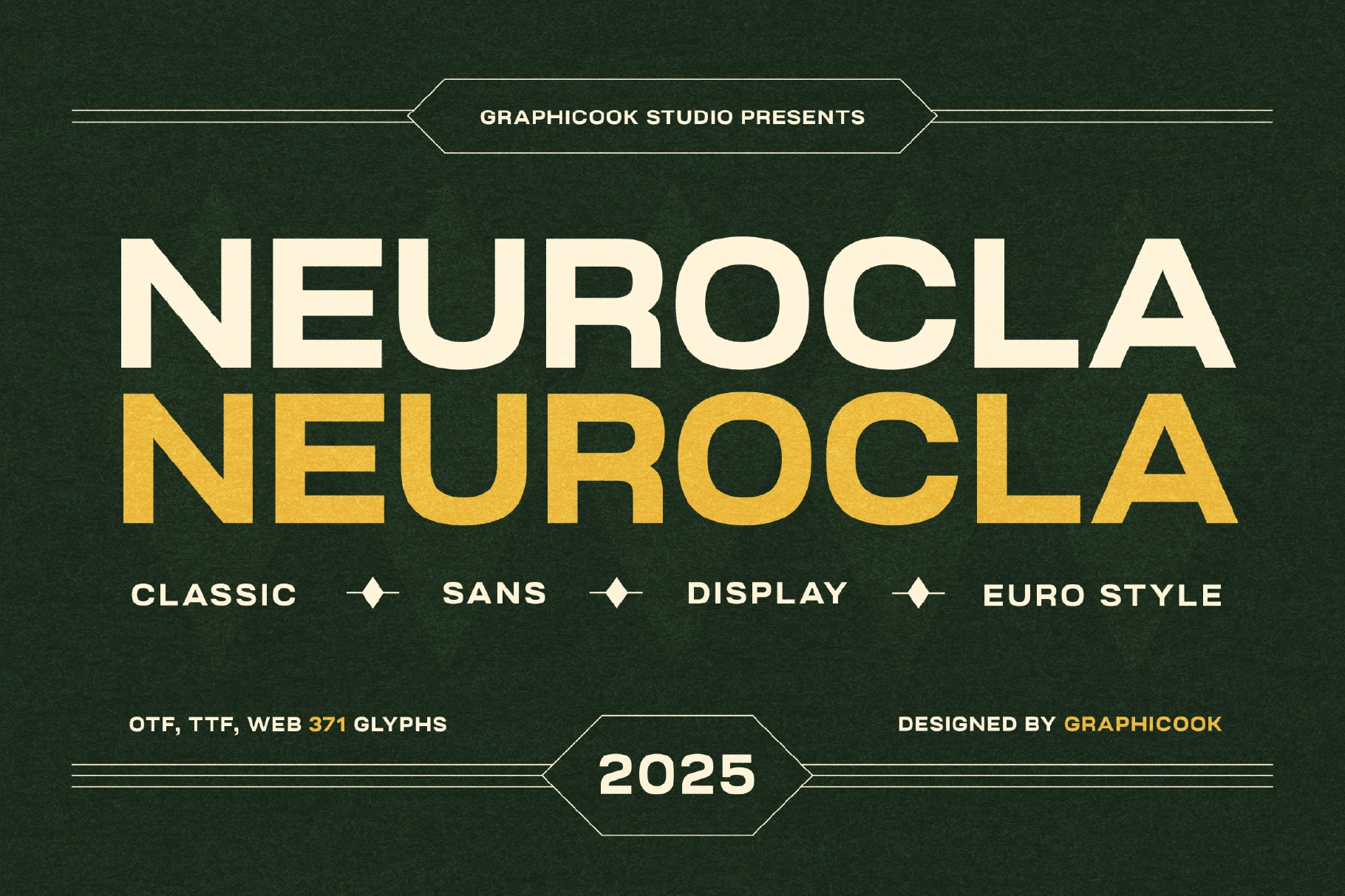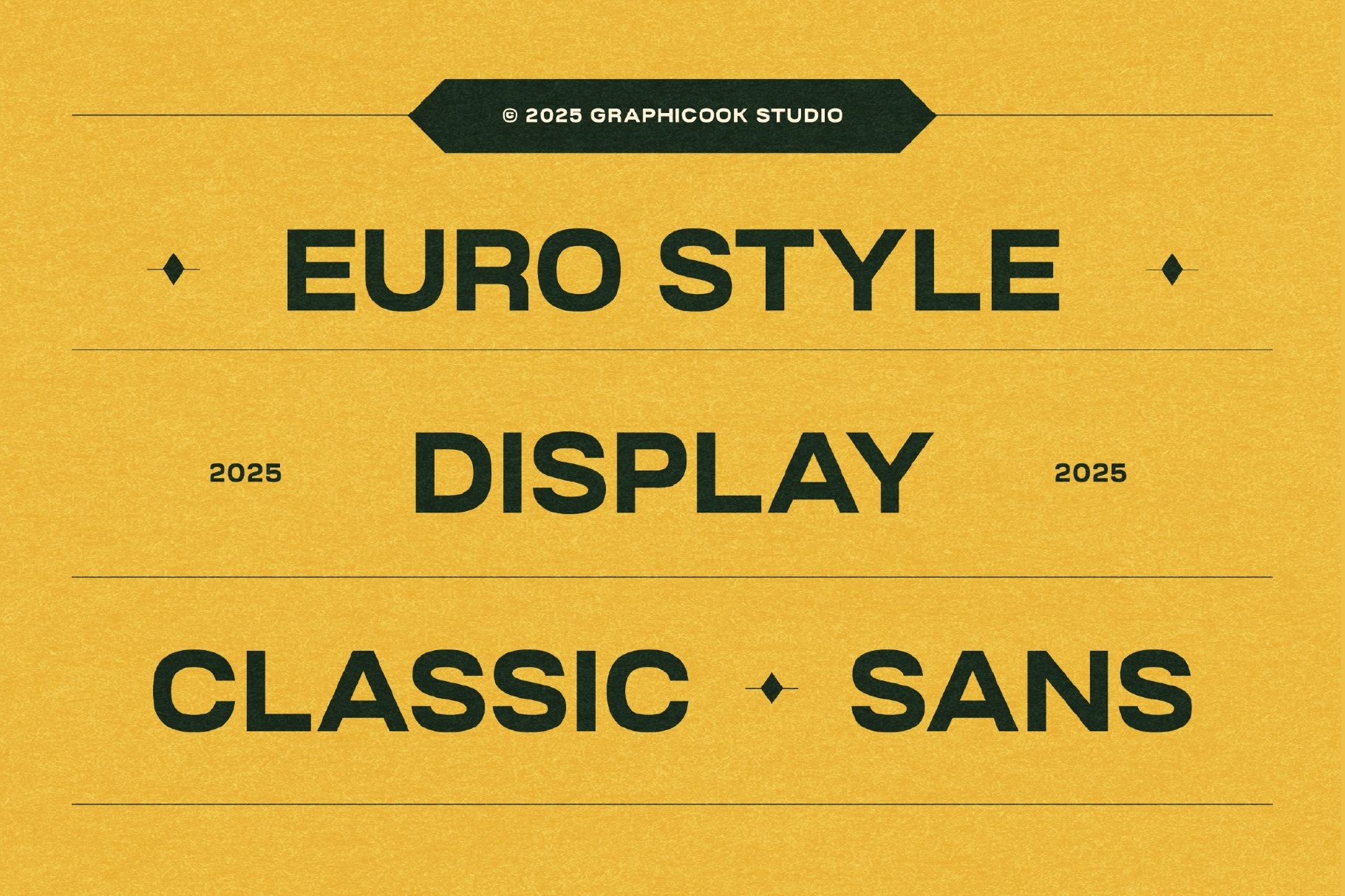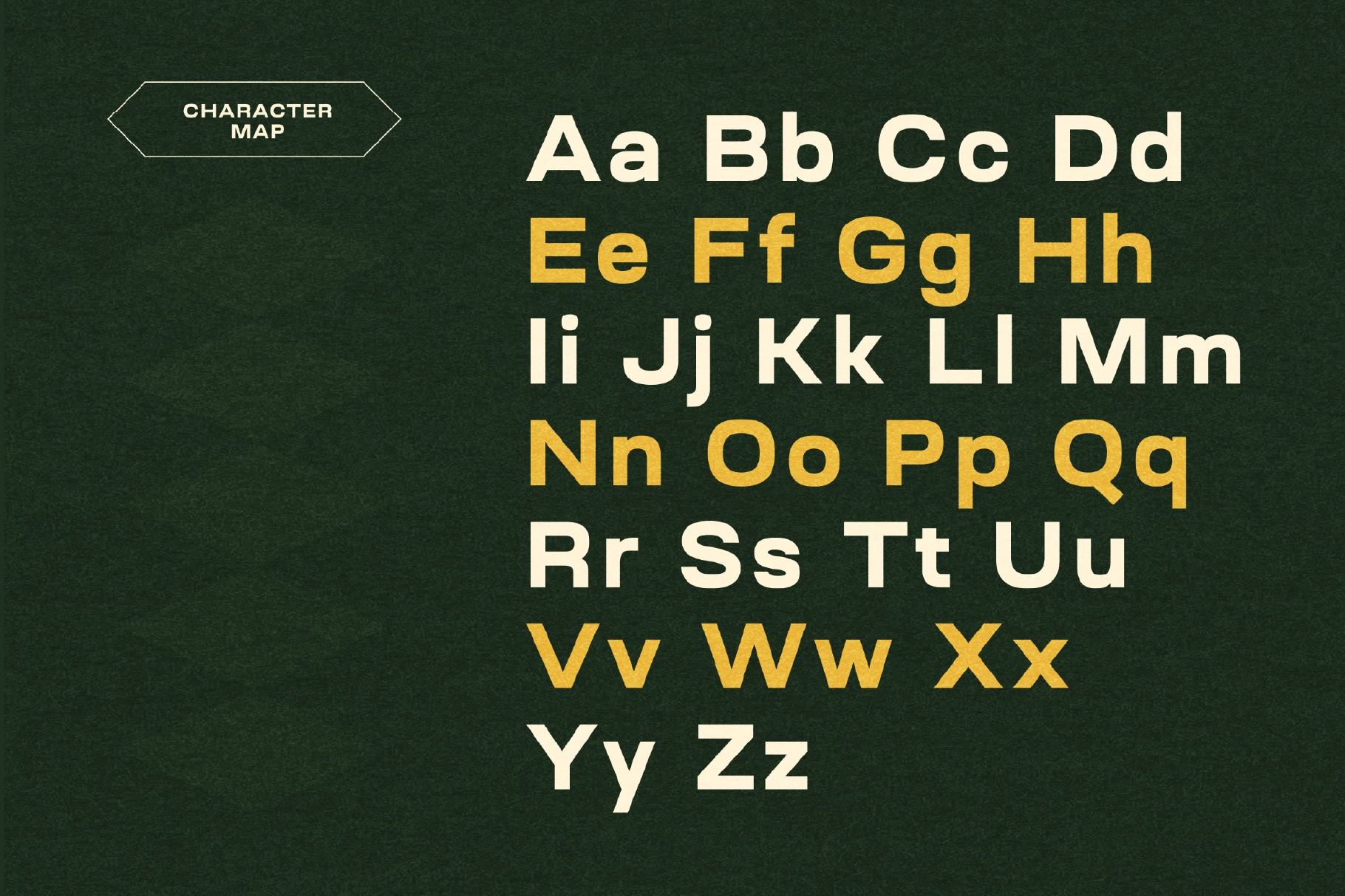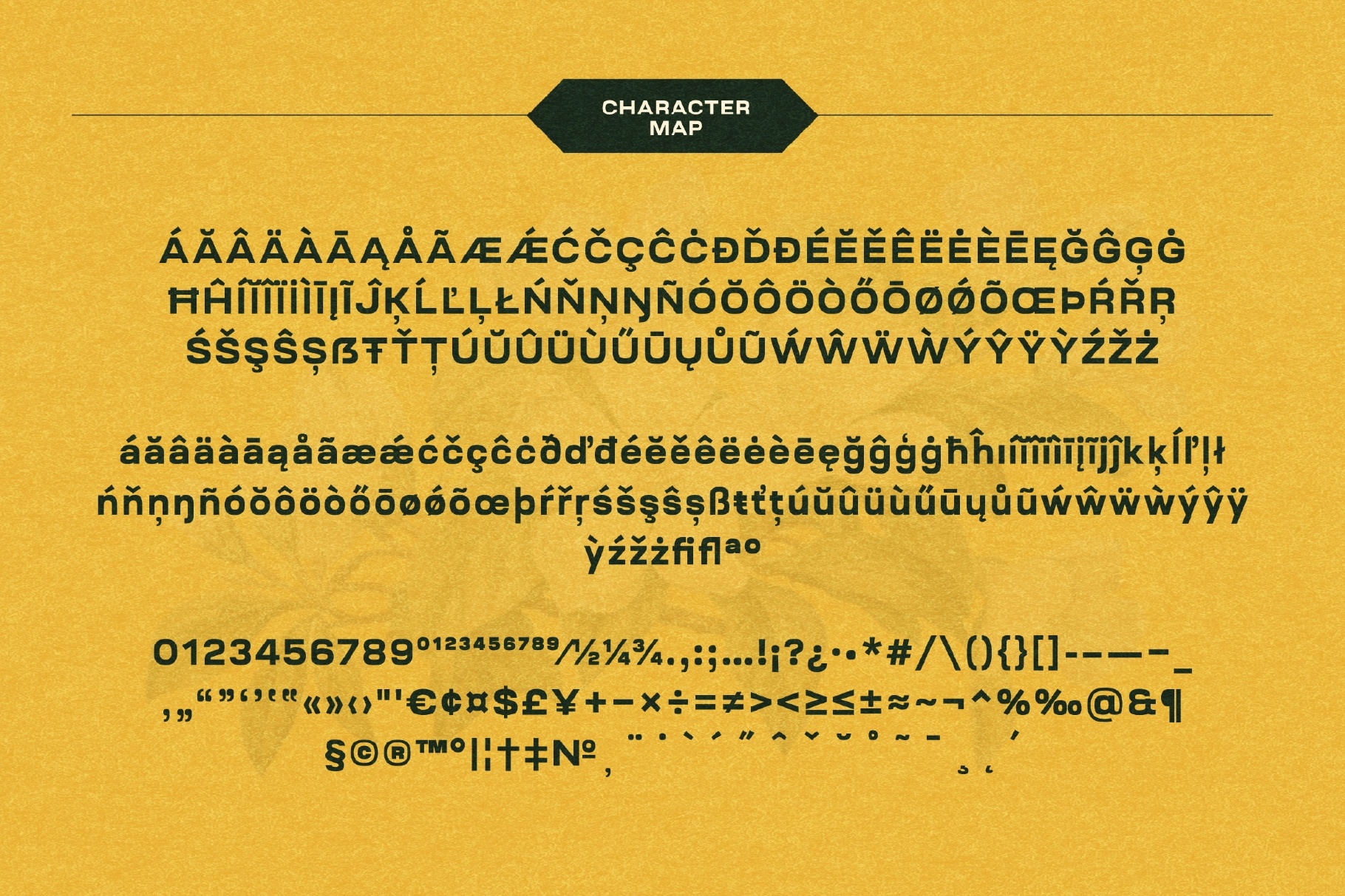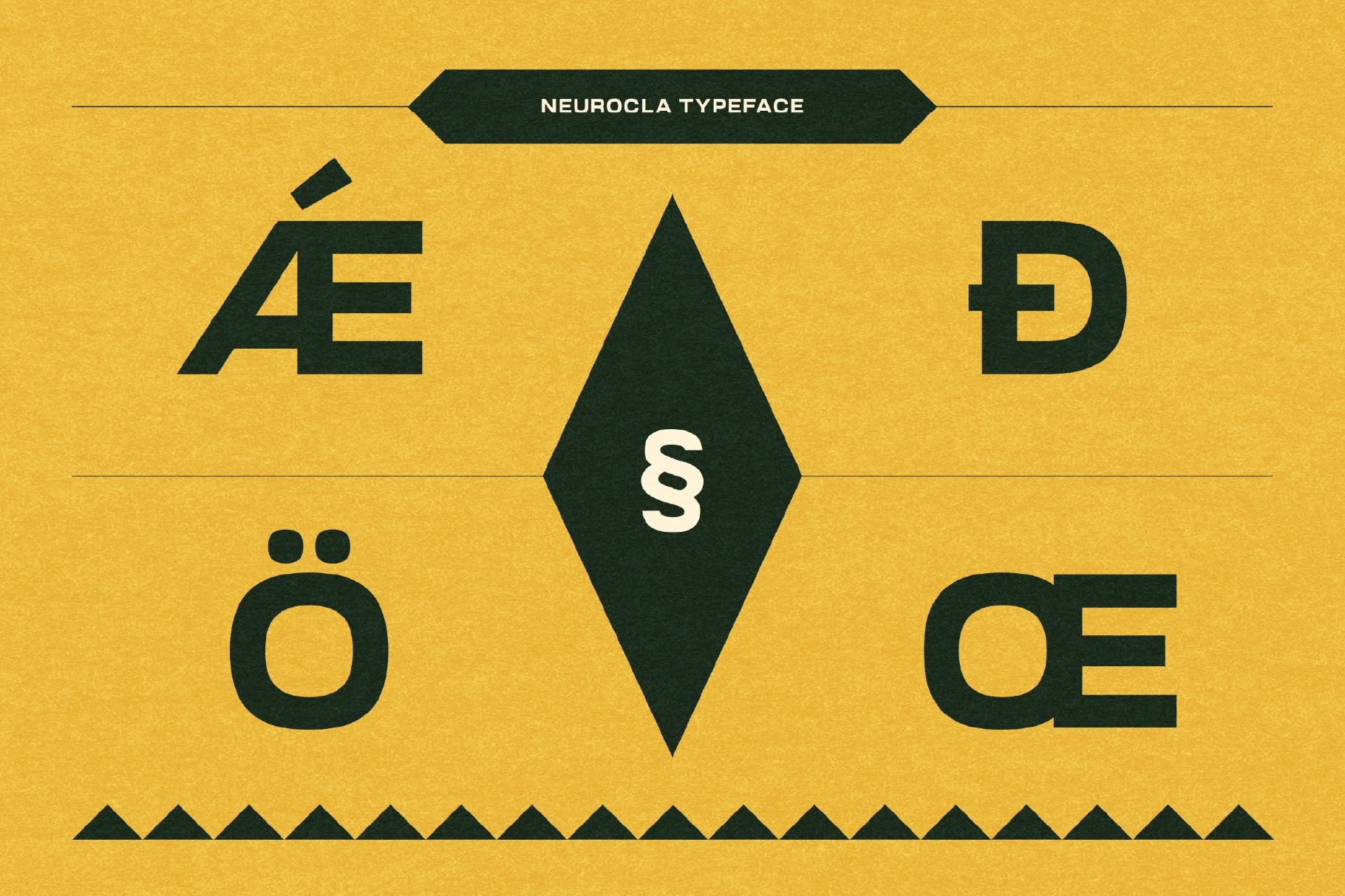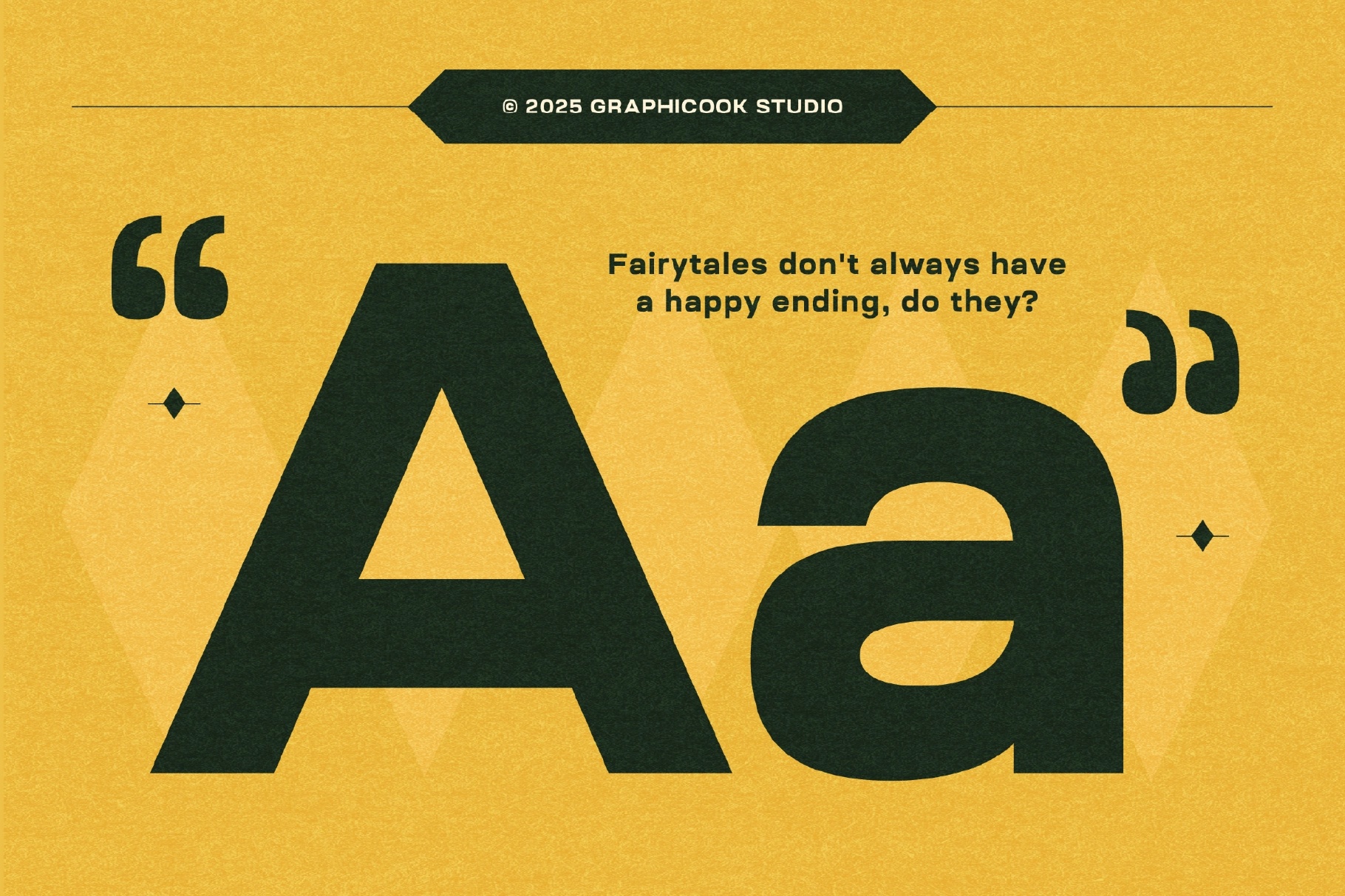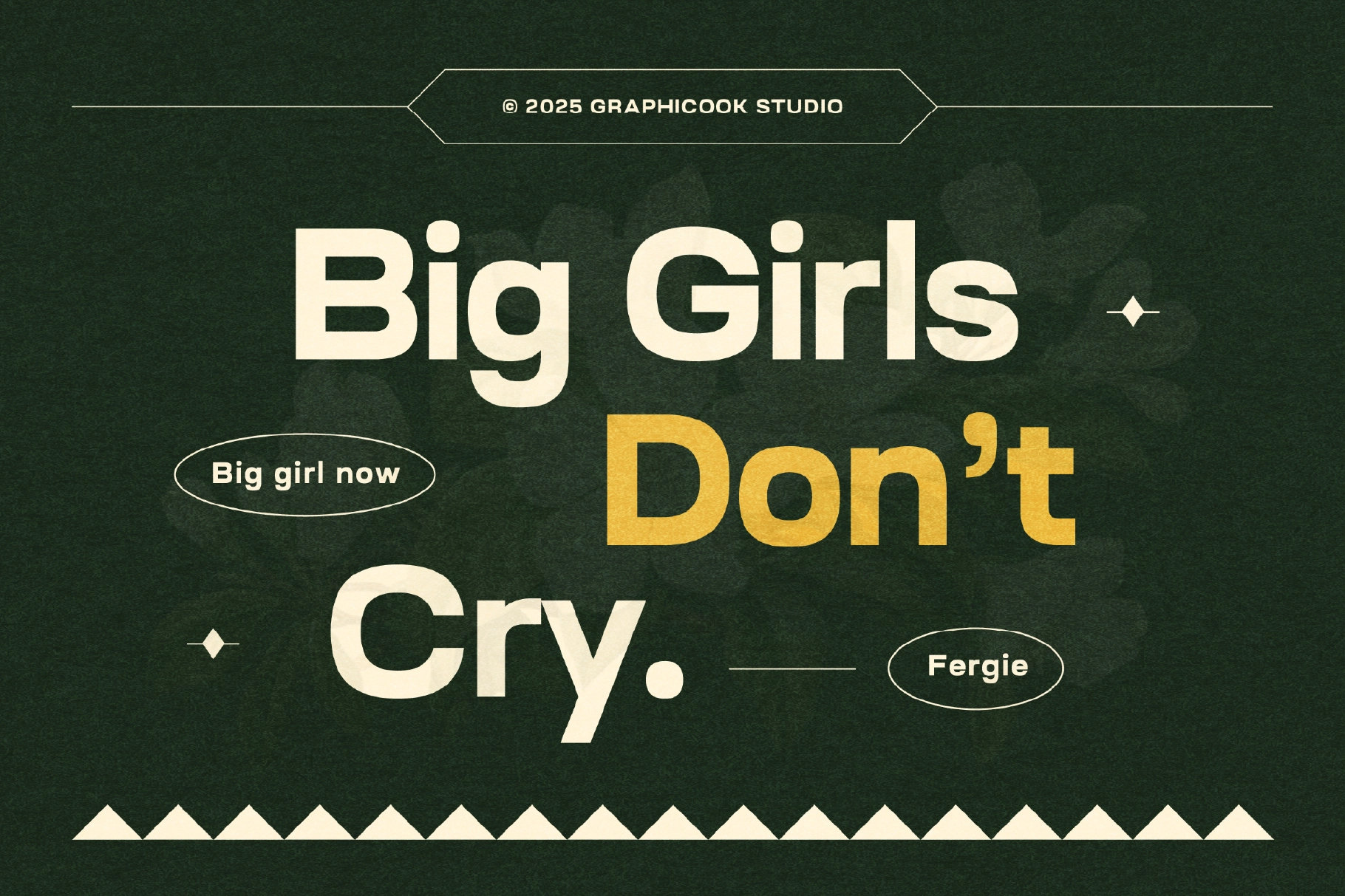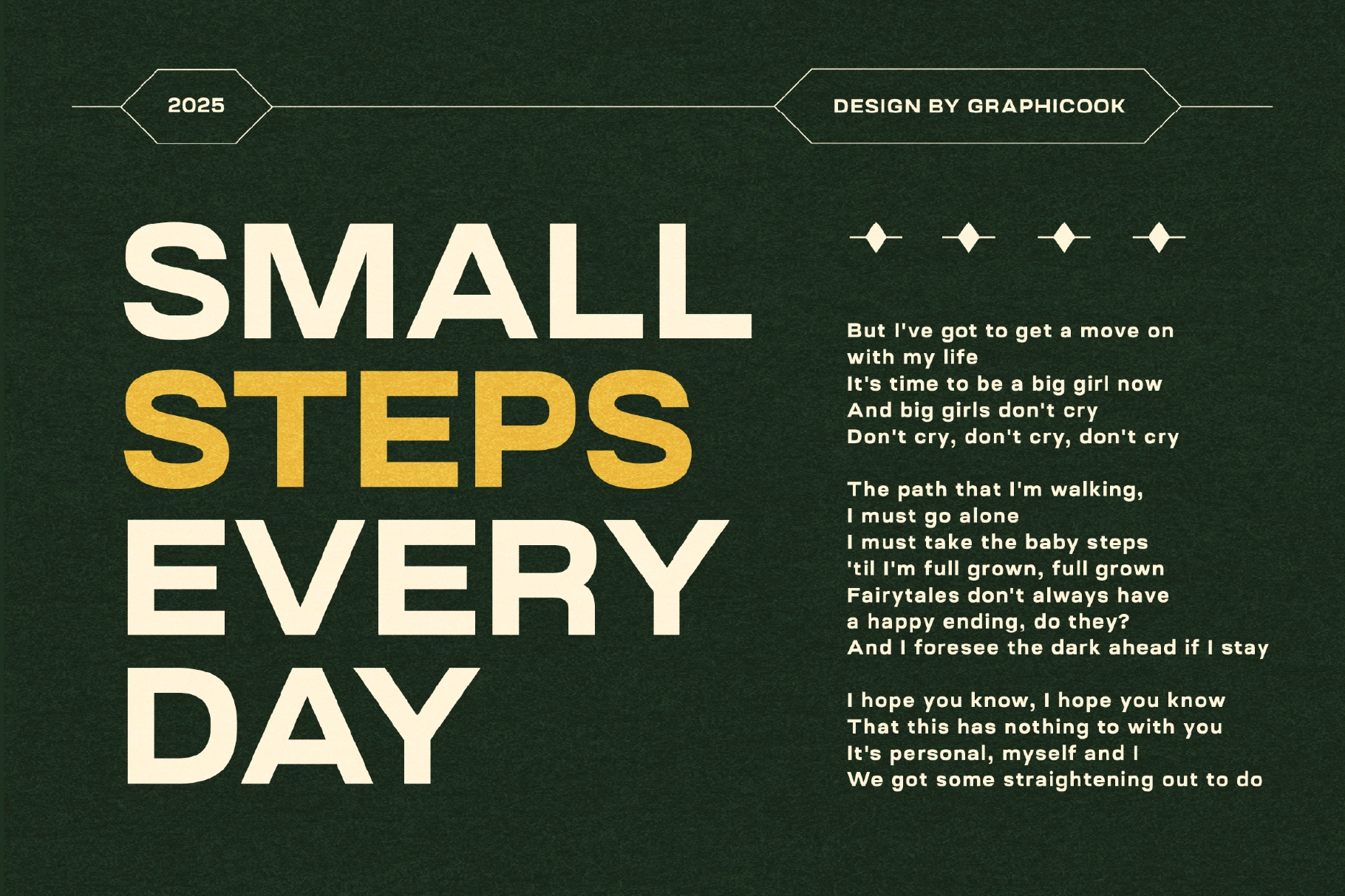
Neurocla Font
Neurocla
Neurocla is a geometric sans-serif font with a clean, minimalist look and a timeless vintage feel. Easy to read and highly versatile, it works well for professional designs, logos, and body text.